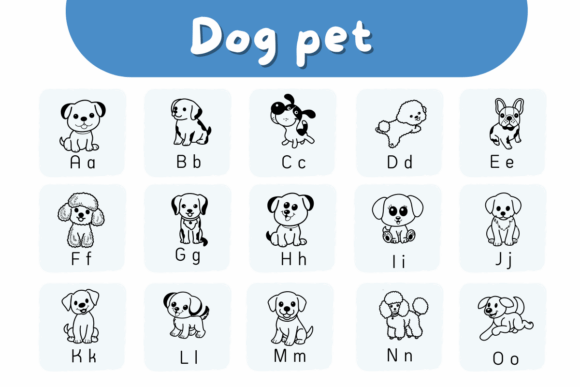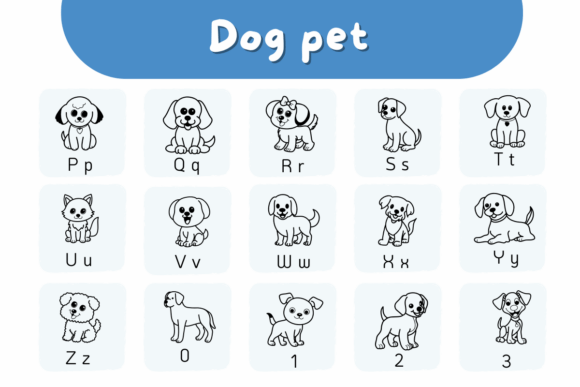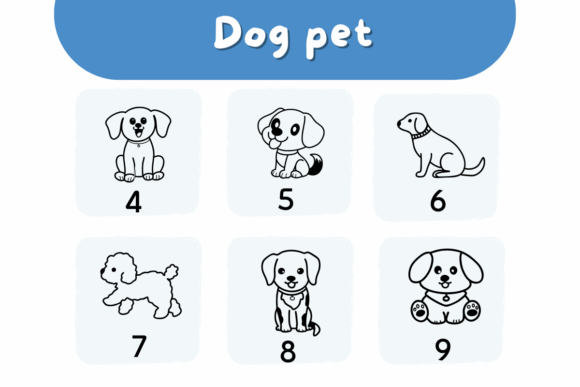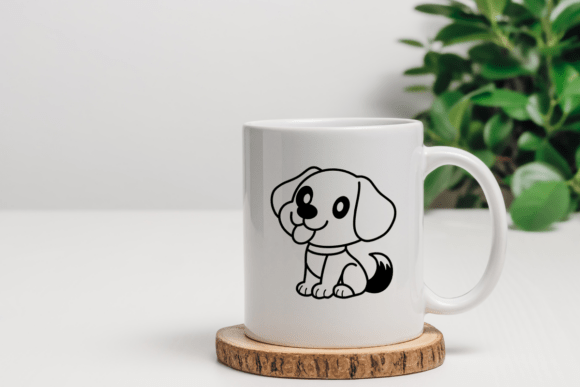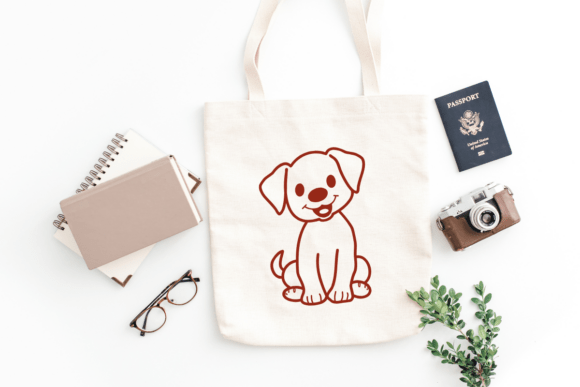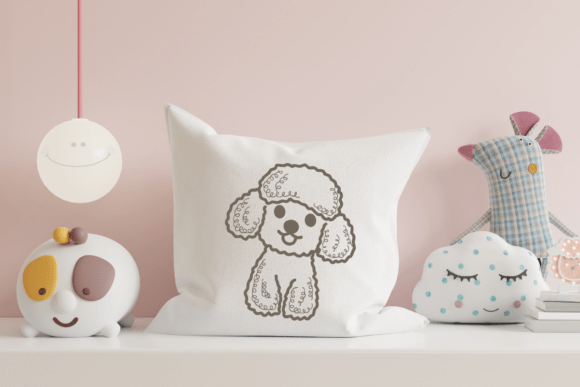
Introducing Dog Pet Font: The Ultimate Dingbat Font for Pet Lovers
Are you a designer, crafty enthusiast, or simply a dog lover looking for a unique and adorable font to add a personal touch to your projects? Look no further than Dog Pet Font, a charming dingbat font filled with cartoon dog illustrations that are sure to bring a smile to anyone’s face. In this article, we’ll dive into the world of Dog Pet Font, exploring its features, uses, and benefits, and why it’s the perfect addition to your font collection.
What is Dog Pet Font?
Dog Pet Font is a delightful dingbat font that features a collection of charming cartoon dog illustrations. Each glyph in the font represents a unique, friendly puppy in a different pose or style, making it perfect for a wide range of design projects. Whether you’re working on a children’s book, logo, greeting card, or vet clinic branding, Dog Pet Font is sure to add a touch of cuteness and positivity to your design.
Key Features of Dog Pet Font
- Adorable Cartoon Dog Illustrations: Each glyph in the font features a unique and charming cartoon dog illustration, perfect for pet lovers and children’s projects.
- Clean Outlines and Playful Energy: The font features clean outlines and a playful energy, making it perfect for projects that need a dose of cuteness and positivity.
- Easy to Use: Dog Pet Font is easy to use, just like a regular font. Simply type a character to drop in a dog illustration instantly!
- Versatile: The font is perfect for a wide range of design projects, including pet shops, dog-themed merch, educational worksheets, and more.
Uses for Dog Pet Font
Dog Pet Font is a versatile font that can be used in a variety of design projects, including:
- Children’s Books: Add a touch of cuteness and personality to your children’s book with Dog Pet Font.
- Pet Shops and Dog-Themed Merch: Perfect for pet shops, dog daycare centers, and dog-themed merchandise, such as t-shirts, mugs, and tote bags.
- Educational Worksheets: Add a fun and playful touch to your educational worksheets with Dog Pet Font.
- Logos and Branding: Use Dog Pet Font to create a unique and memorable logo for your pet-related business.
- Greeting Cards: Add a personal touch to your greeting cards with Dog Pet Font.
- Vet Clinic Branding: Use Dog Pet Font to create a friendly and approachable brand identity for your vet clinic.
Benefits of Using Dog Pet Font
Using Dog Pet Font in your design projects offers a range of benefits, including:
- Adds a Touch of Cuteness and Positivity: Dog Pet Font is sure to bring a smile to anyone’s face, adding a touch of cuteness and positivity to your design.
- Unique and Memorable: The font’s unique and charming illustrations are sure to make your design stand out and be remembered.
- Easy to Use: Dog Pet Font is easy to use, saving you time and effort in your design projects.
- Versatile: The font can be used in a wide range of design projects, making it a great addition to your font collection.
Dog Pet Font is a charming dingbat font that is sure to bring a touch of cuteness and positivity to your design projects. With its adorable cartoon dog illustrations, clean outlines, and playful energy, it’s perfect for pet lovers, children’s books, logos, greeting cards, and vet clinic branding. Whether you’re a designer, crafty enthusiast, or simply a dog lover, Dog Pet Font is a great addition to your font collection. So why not give it a try and see how it can add a personal touch to your designs?